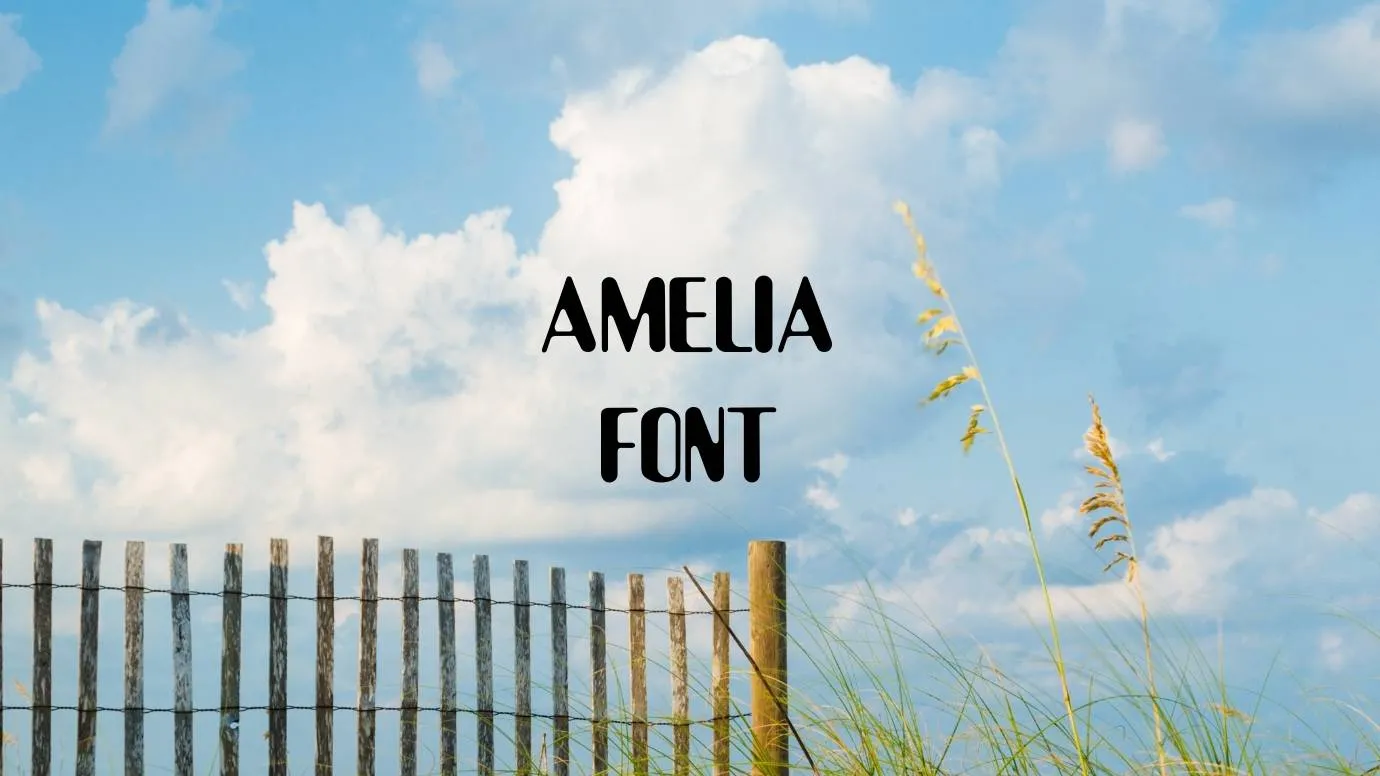
Amelia Font Familywas  crafted by FinnaArt, which made its debut in 2015 featuring the latest updates. This typeface, characterized by its new handwritten script style, comes in three regular weights.
This font contains 180 different characters including numerals, lowercase, uppercase, stylistic alternates, and many special characters are also available in the font family.
Amelia Font
NameAmelia Font
DesignerFinnaArt
Typescript